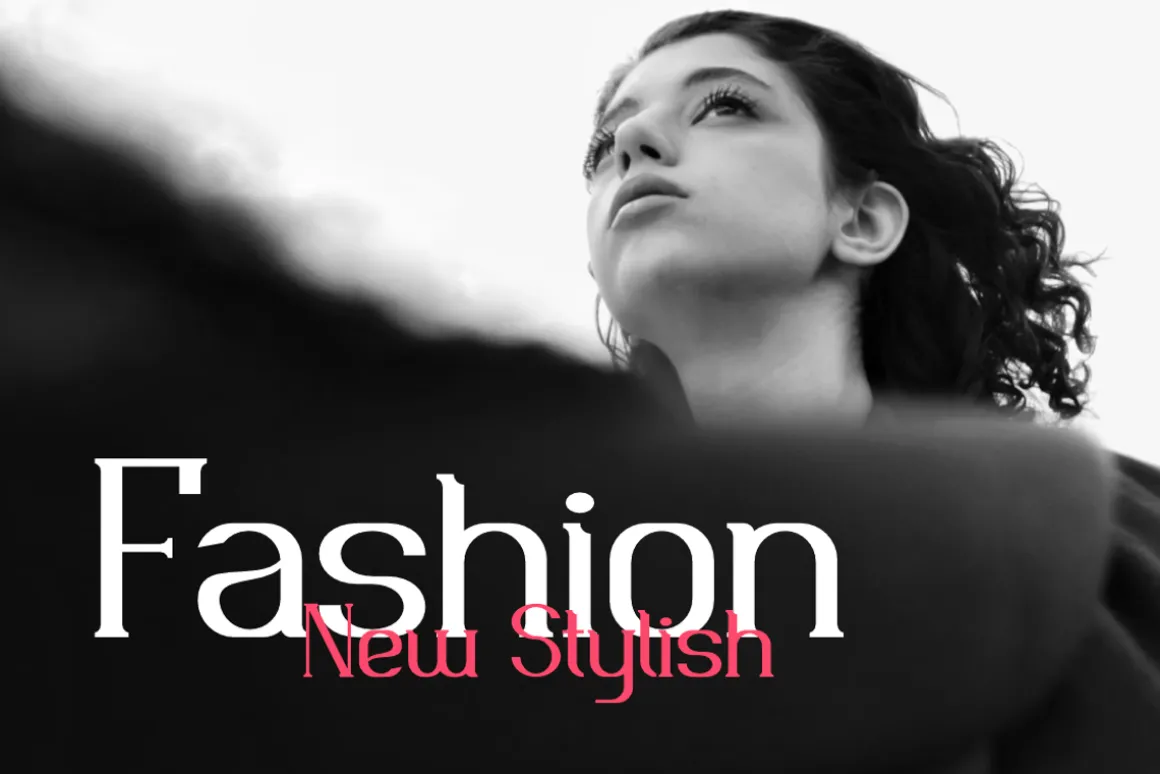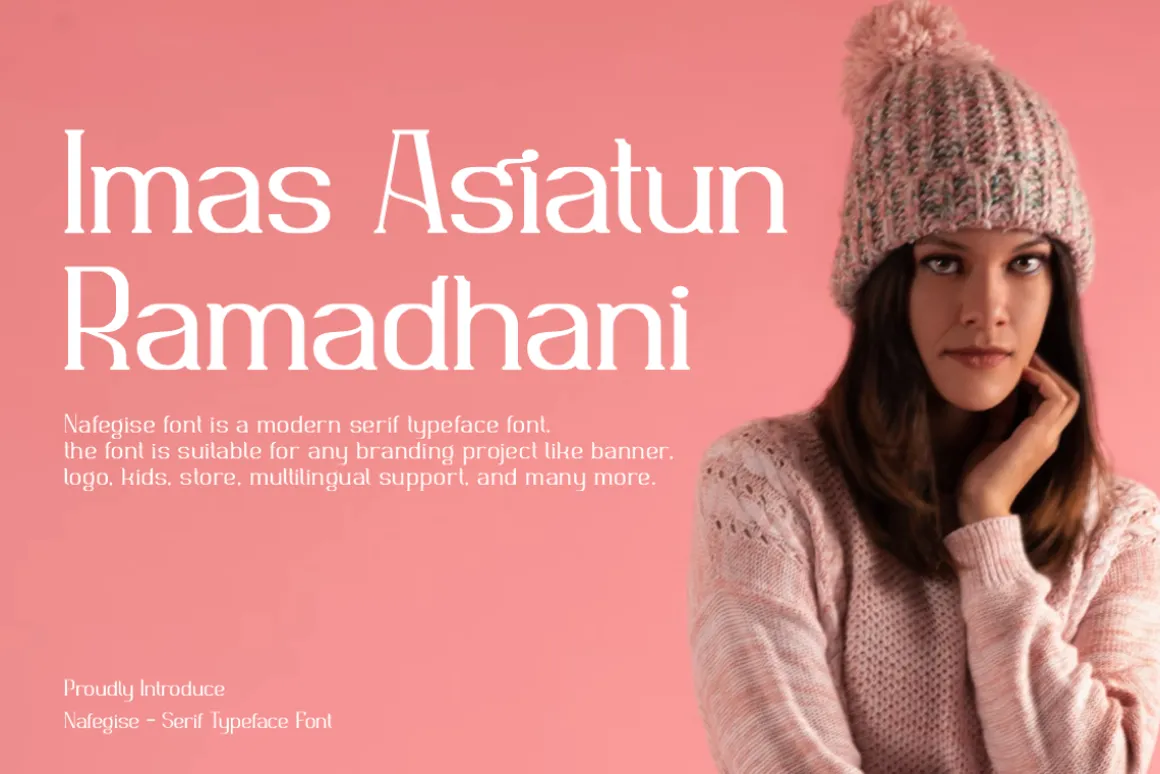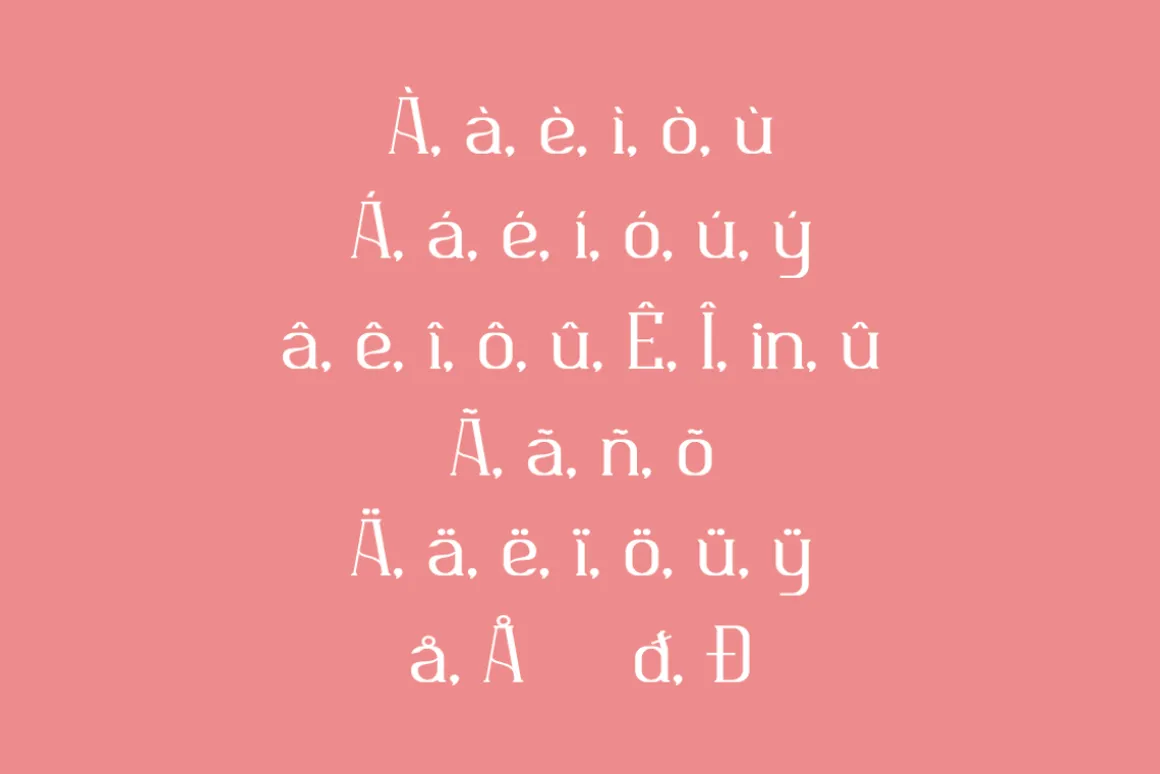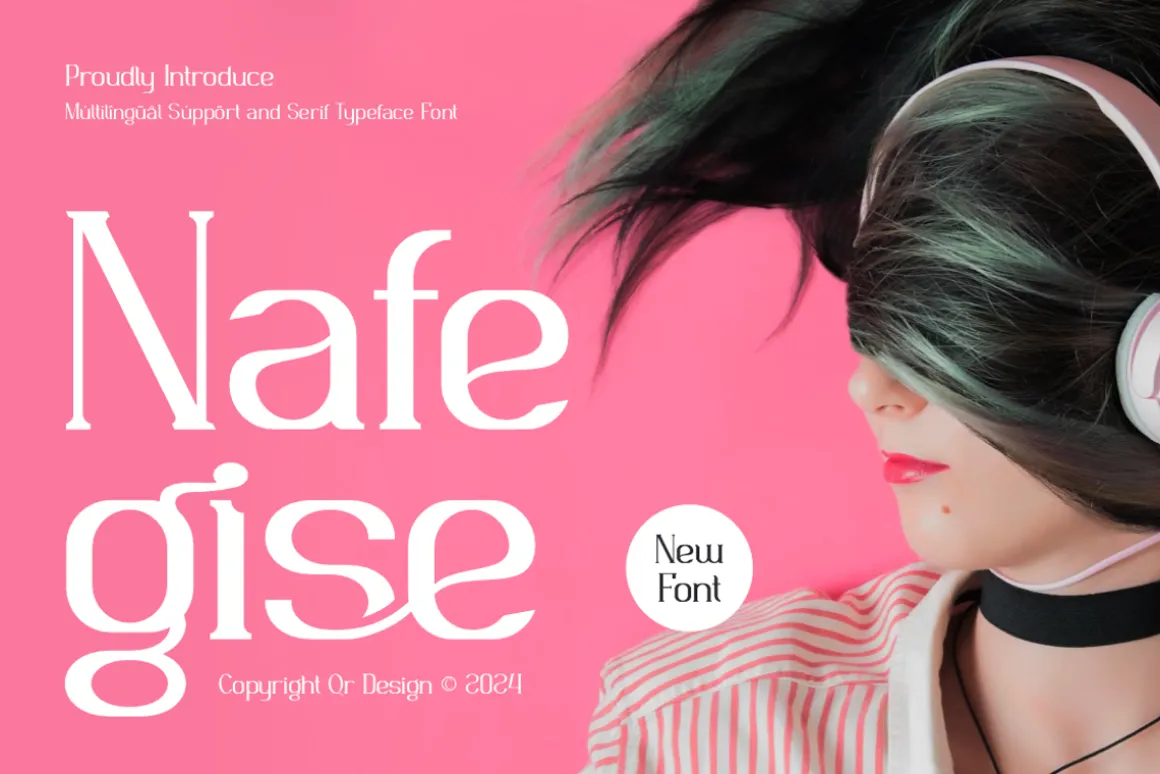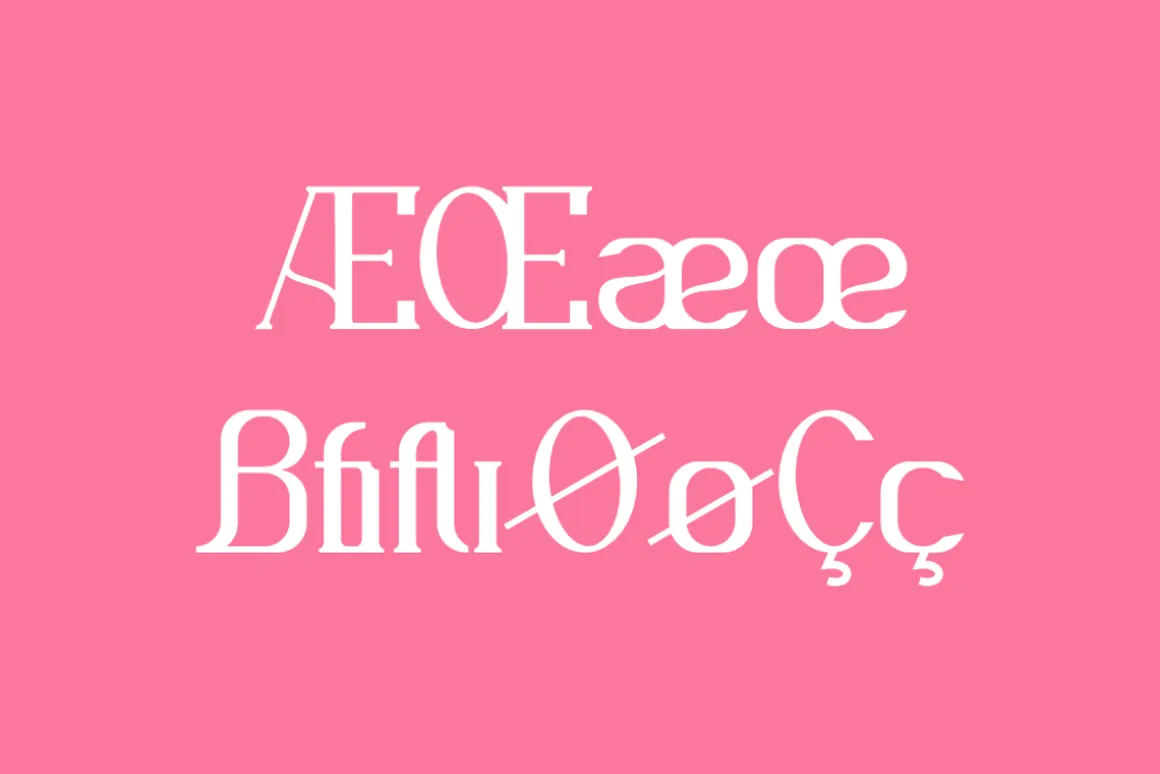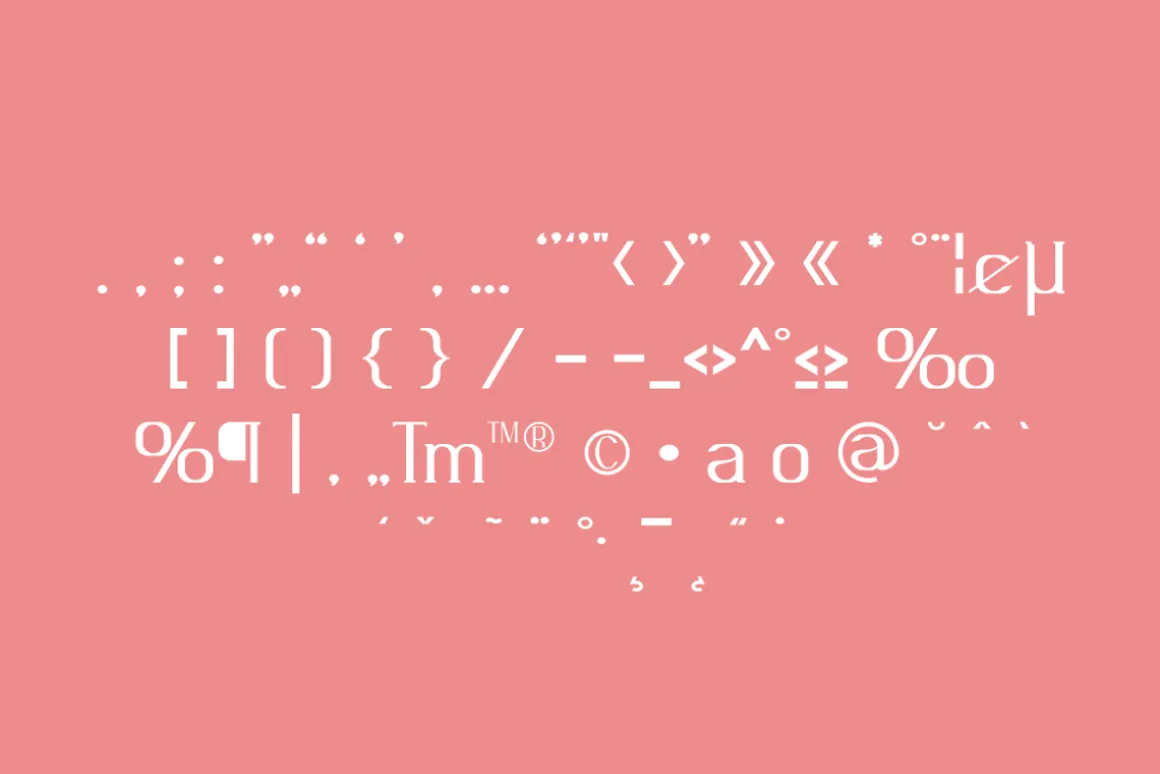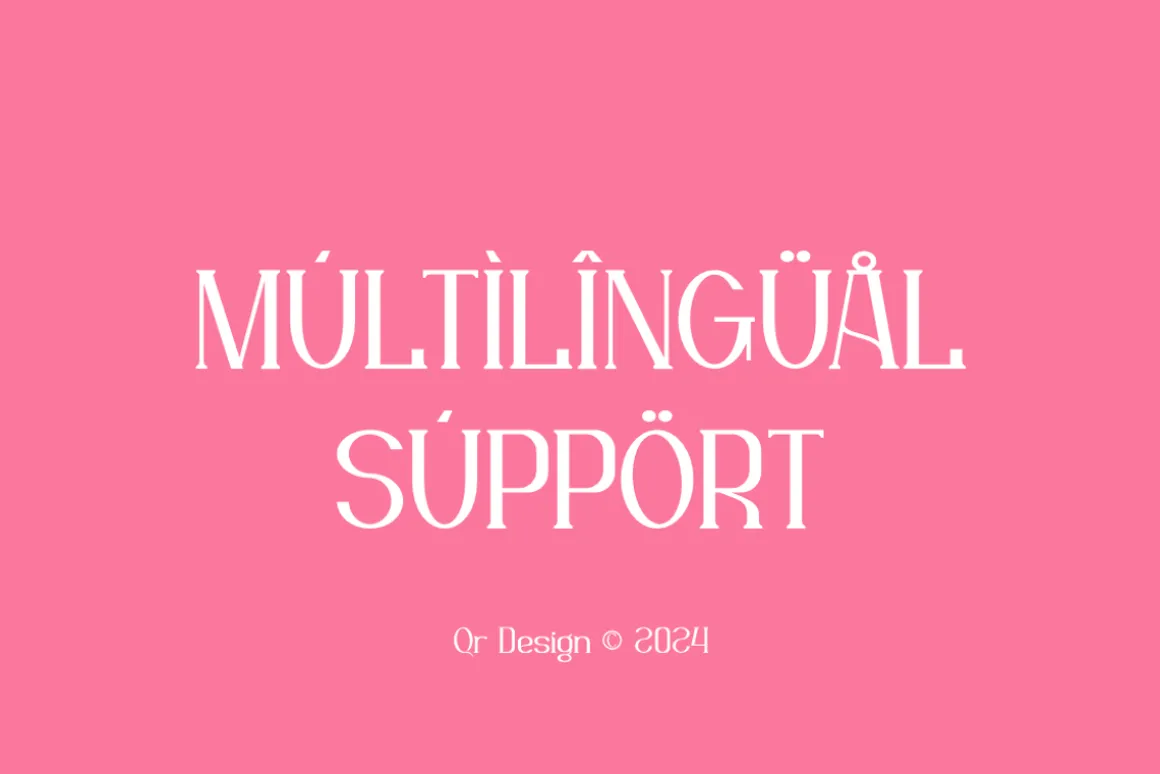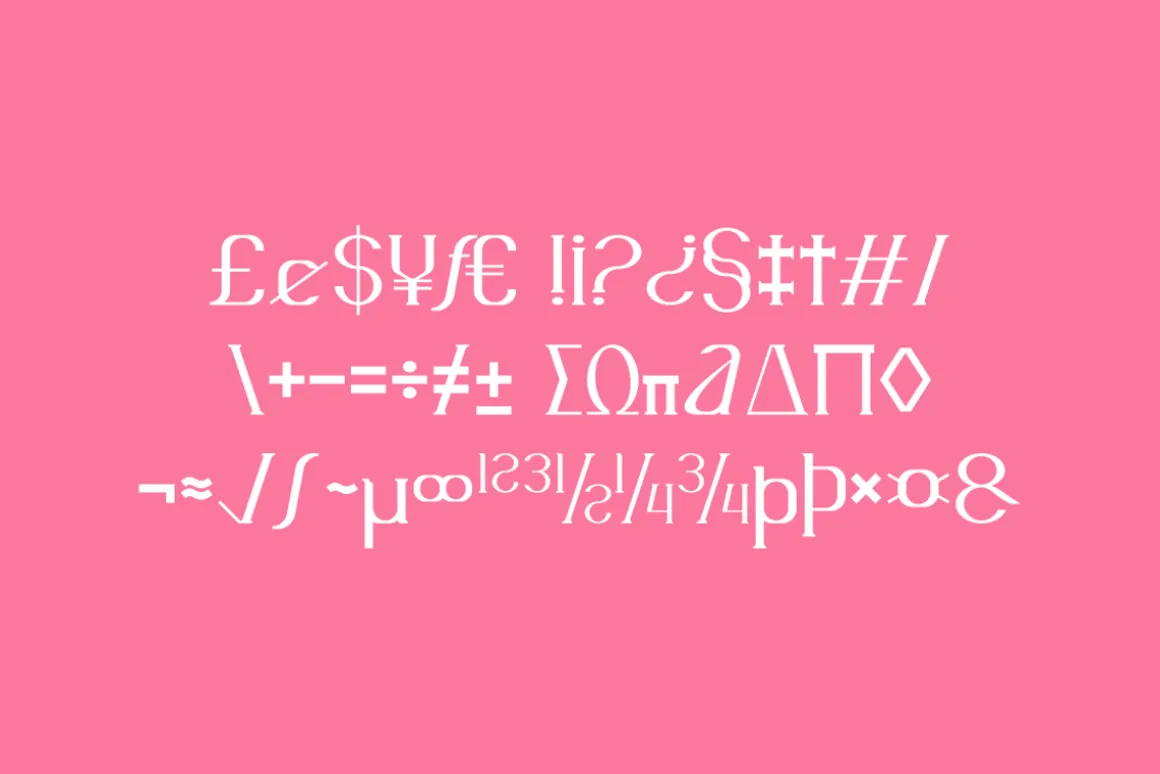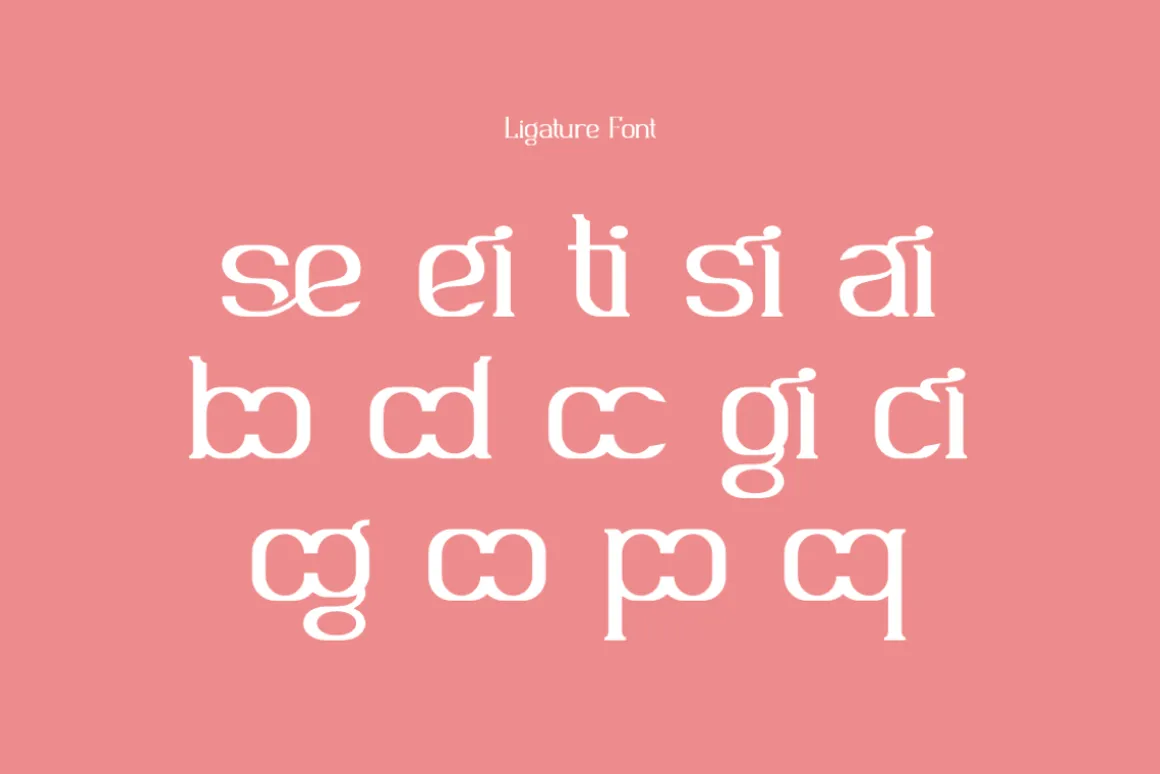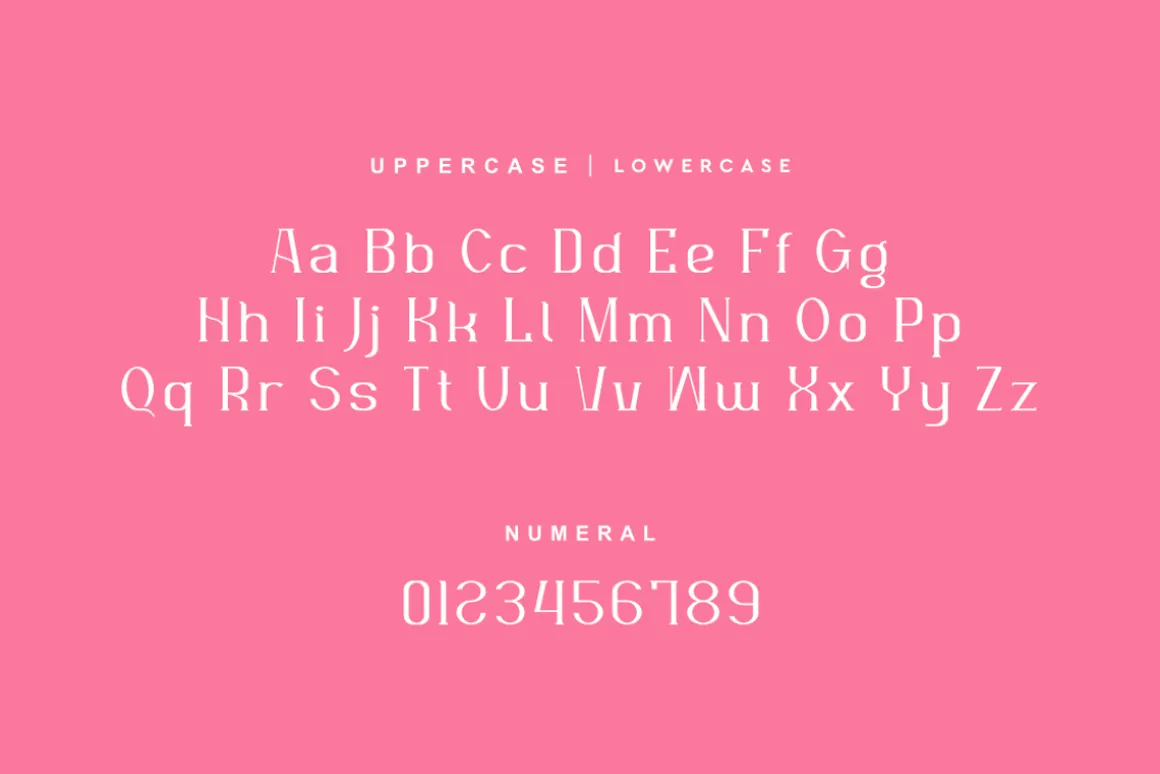
Nafegise Font is a elegant and serif font.The font is suitable for any branding project like stylish, poster, logo, sport, and many more.Outstanding in a wide range of contexts.
Main Features
- Uppercase & Lowercase
- Ligatures & Alternate
- Numeral & Punctuations
- Multilingual Support
- Extended Character Set